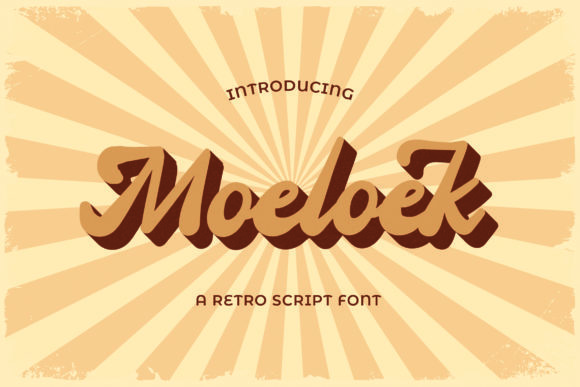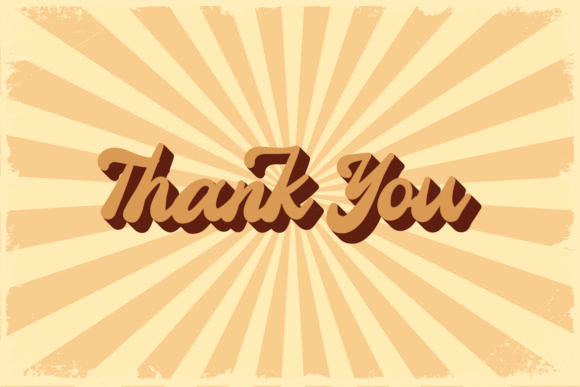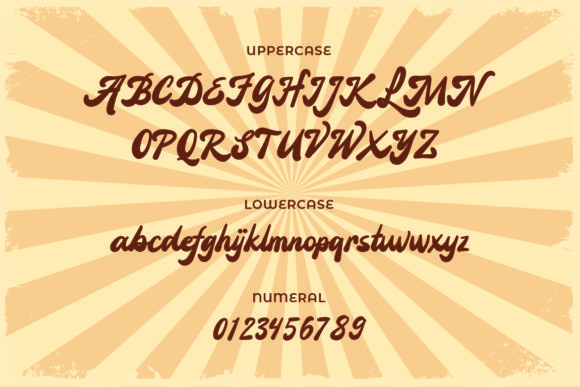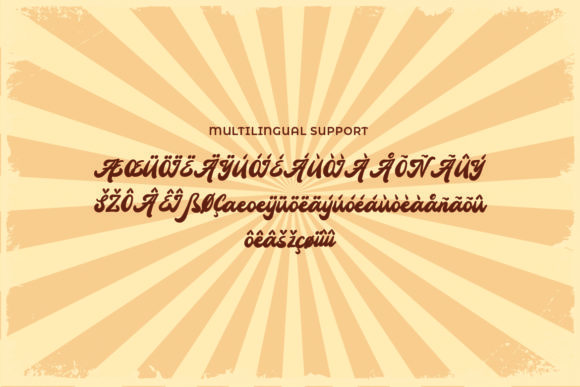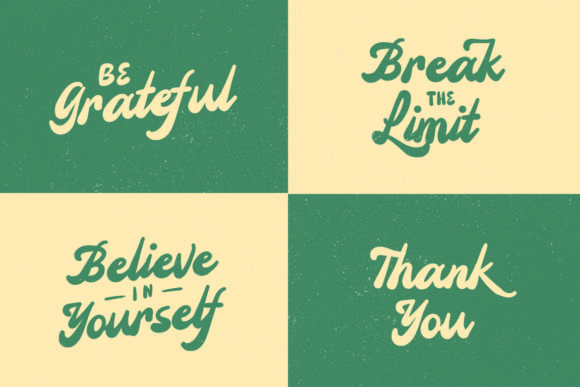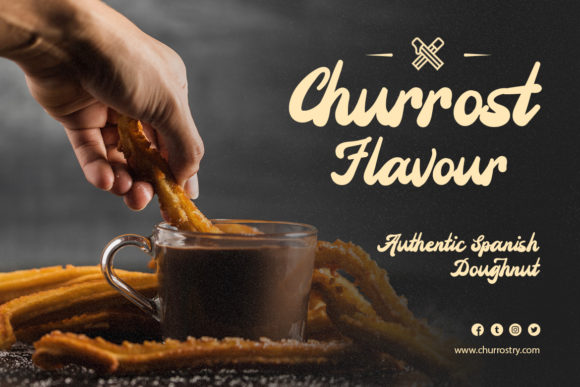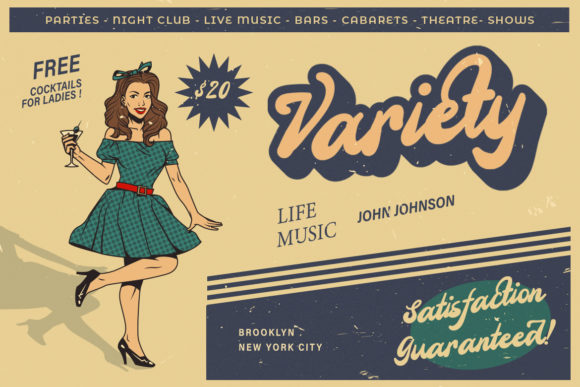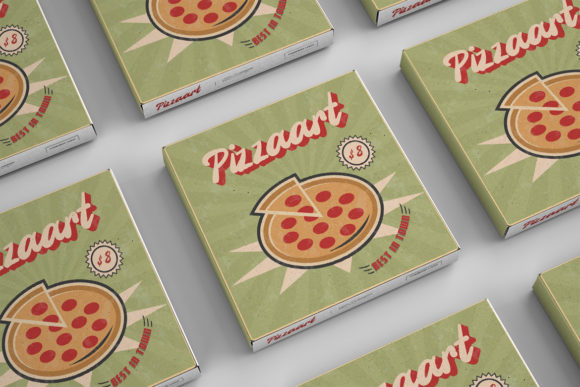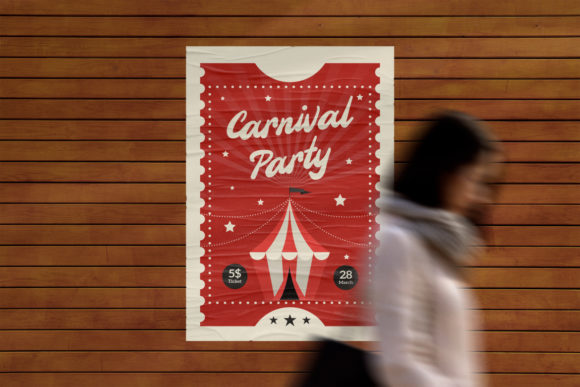
Moeloek Font
About Moeloek Font
Moeloek is a retro styled, cursive handwritten font, crafted to give your headlines and logotype projects a stylish touch. This font reads as strong, confident, and dynamic and can add tons of nostalgic character to your designs.